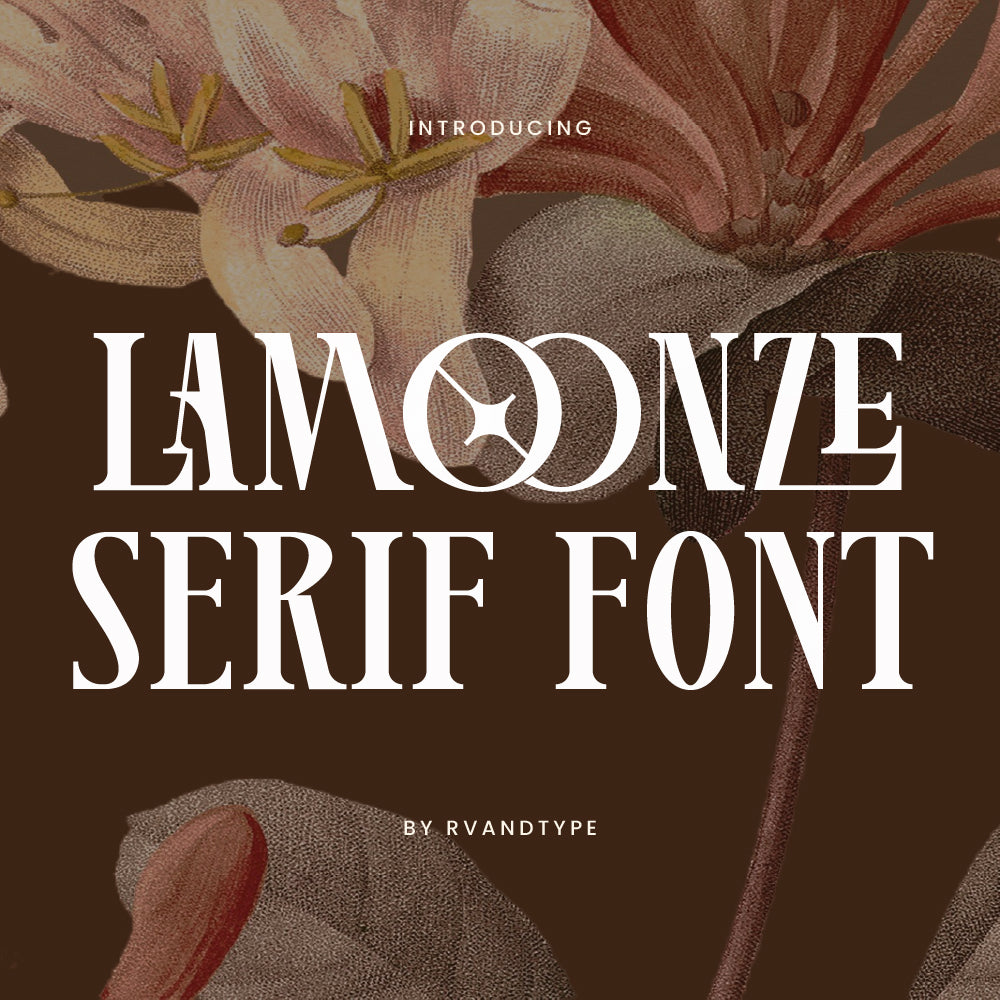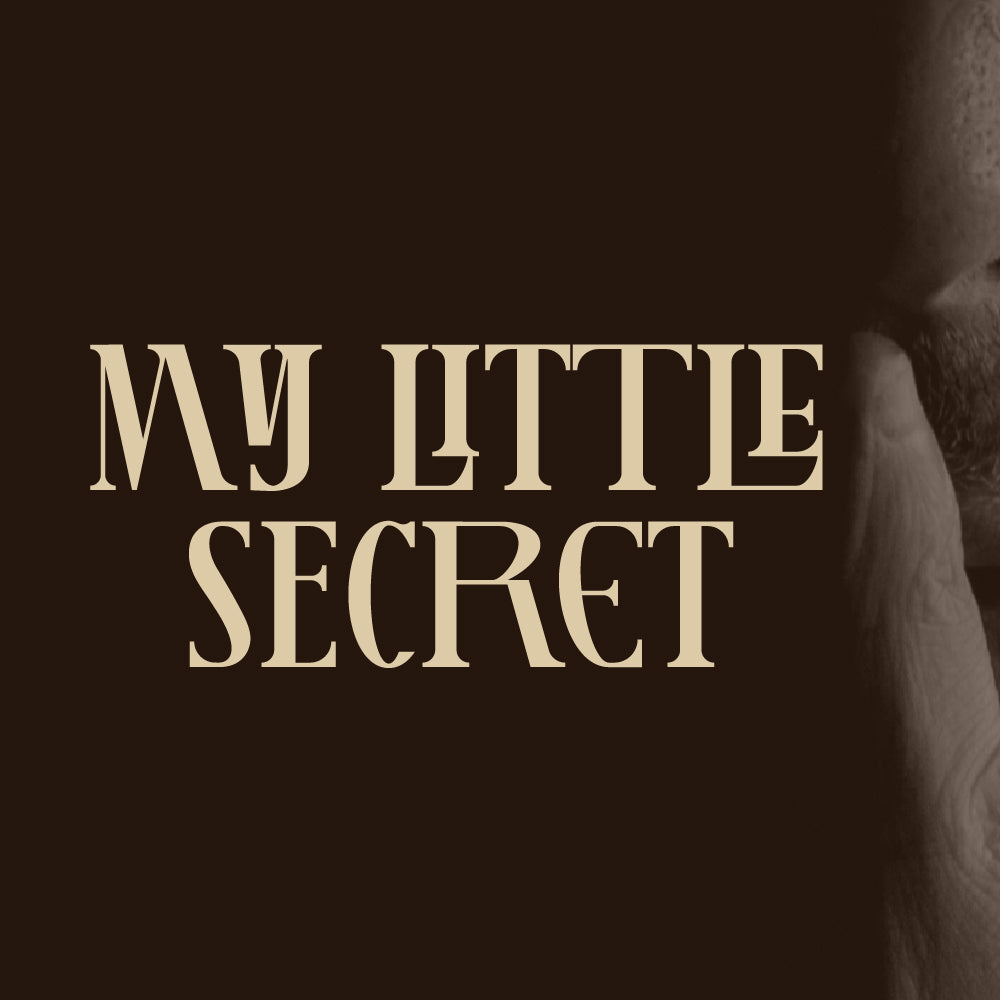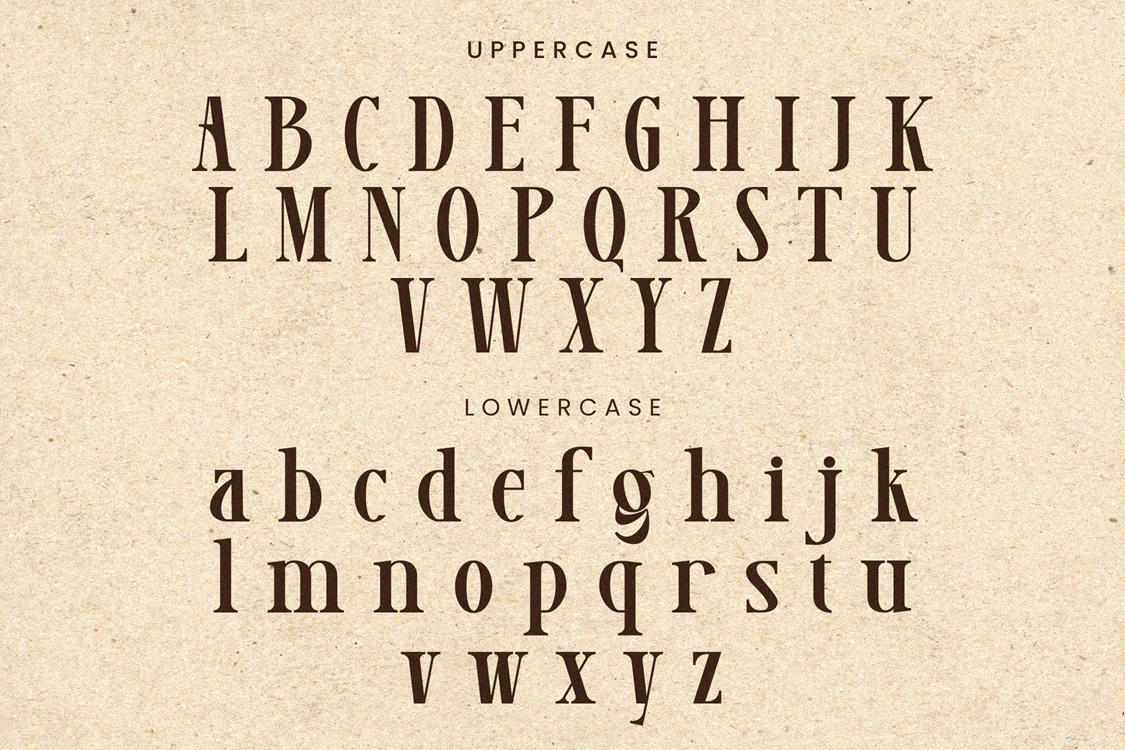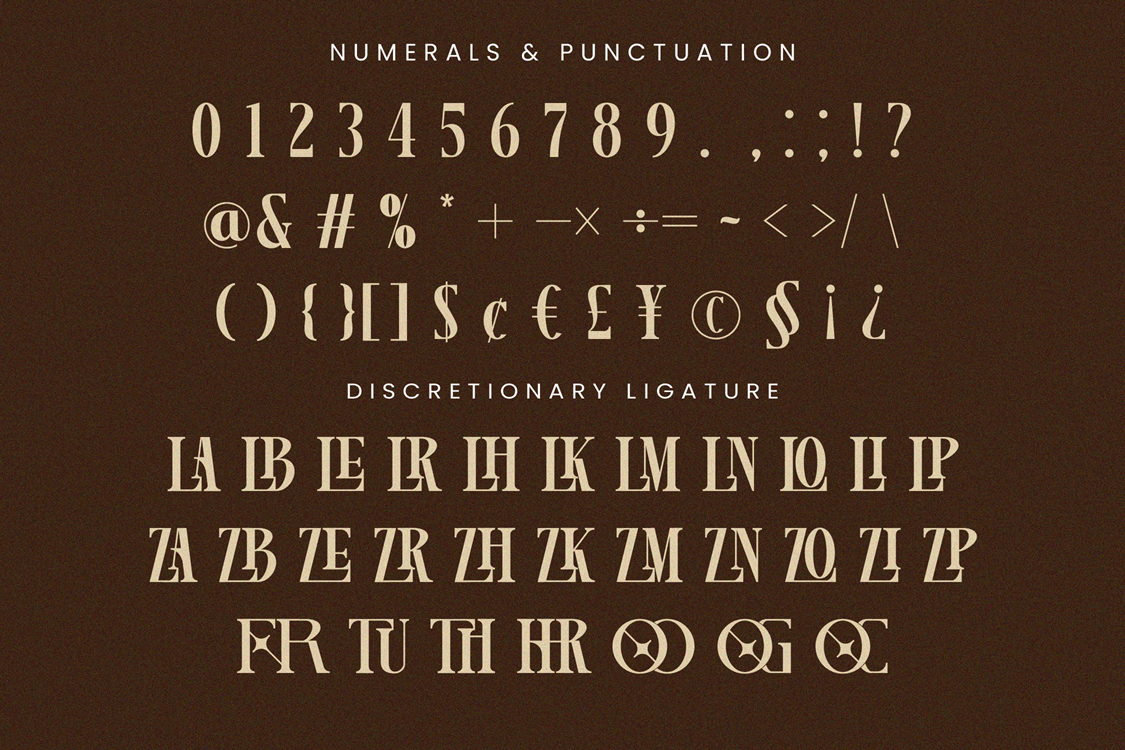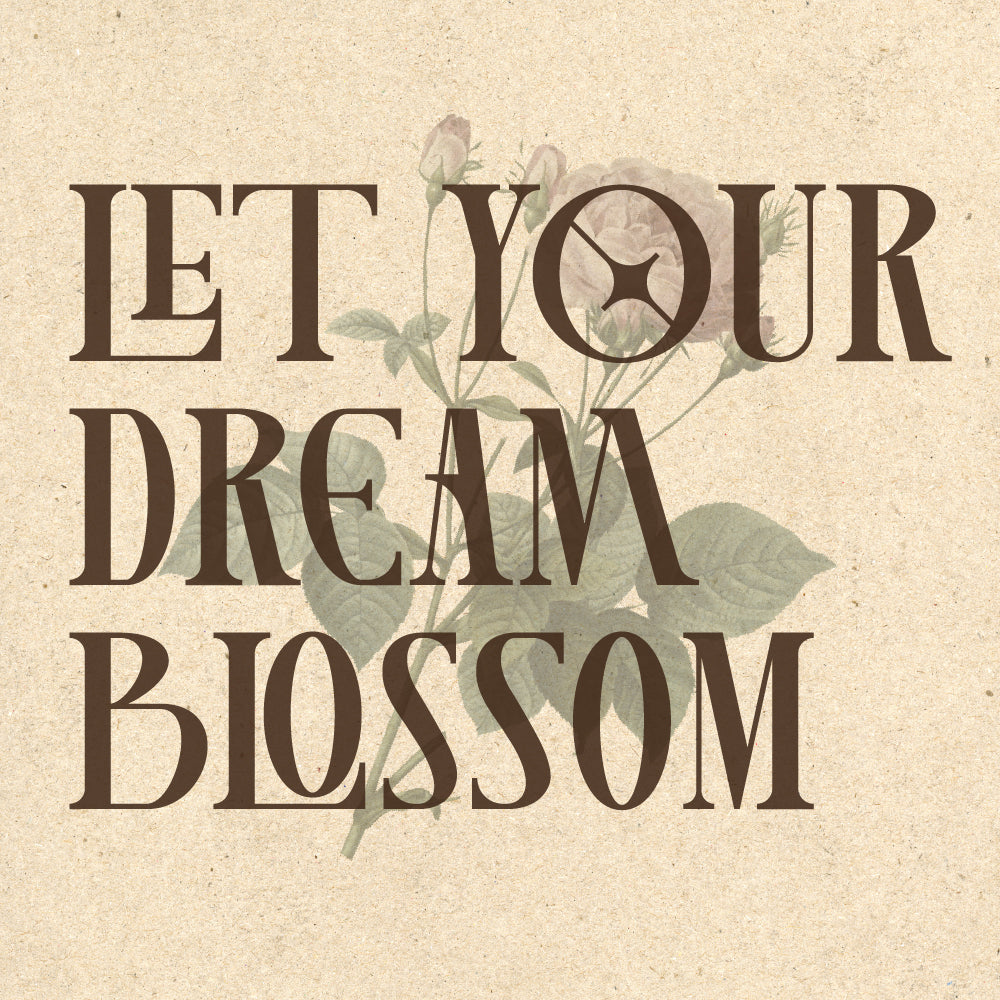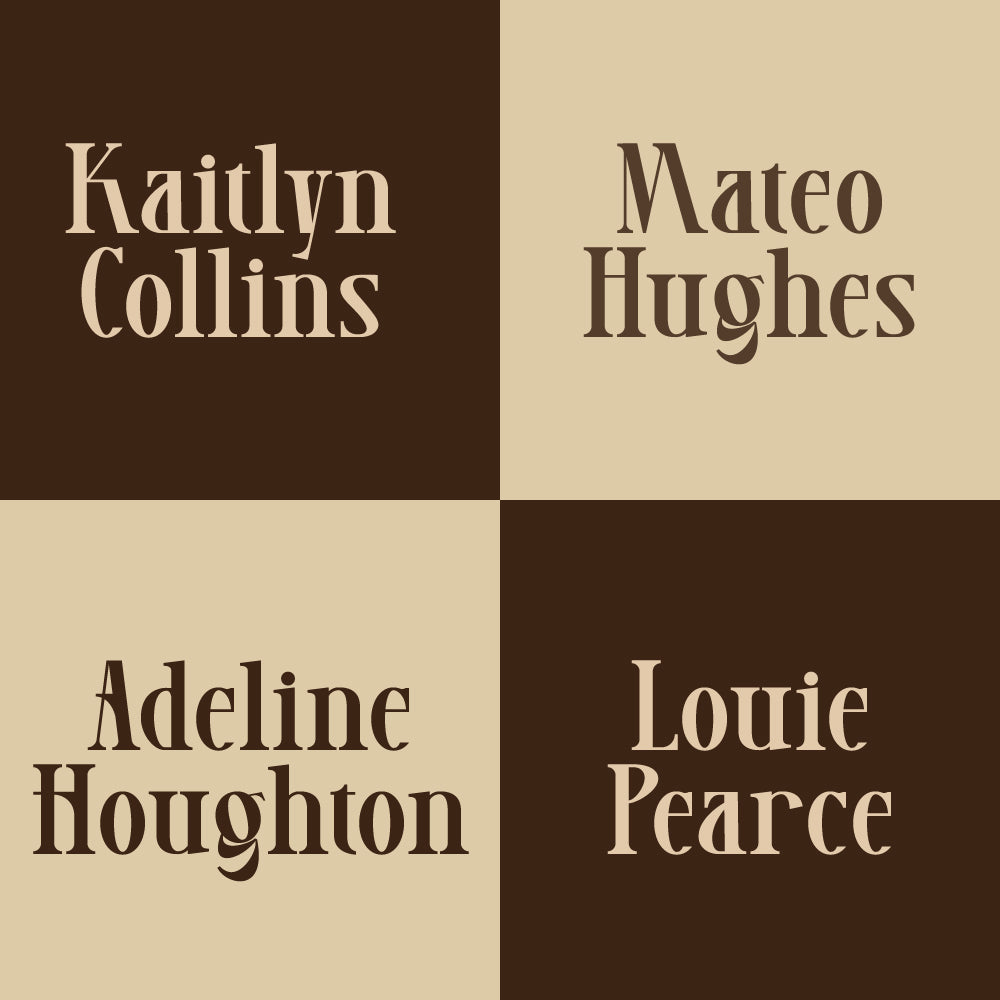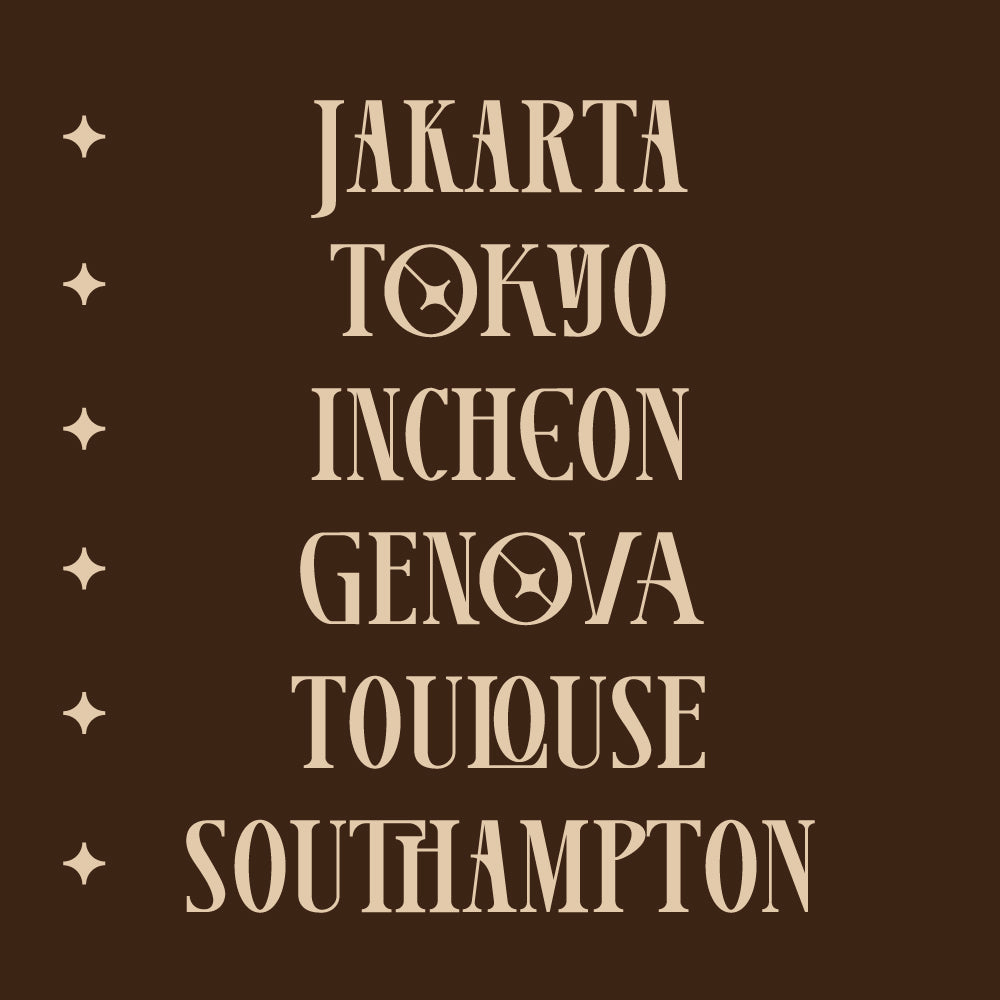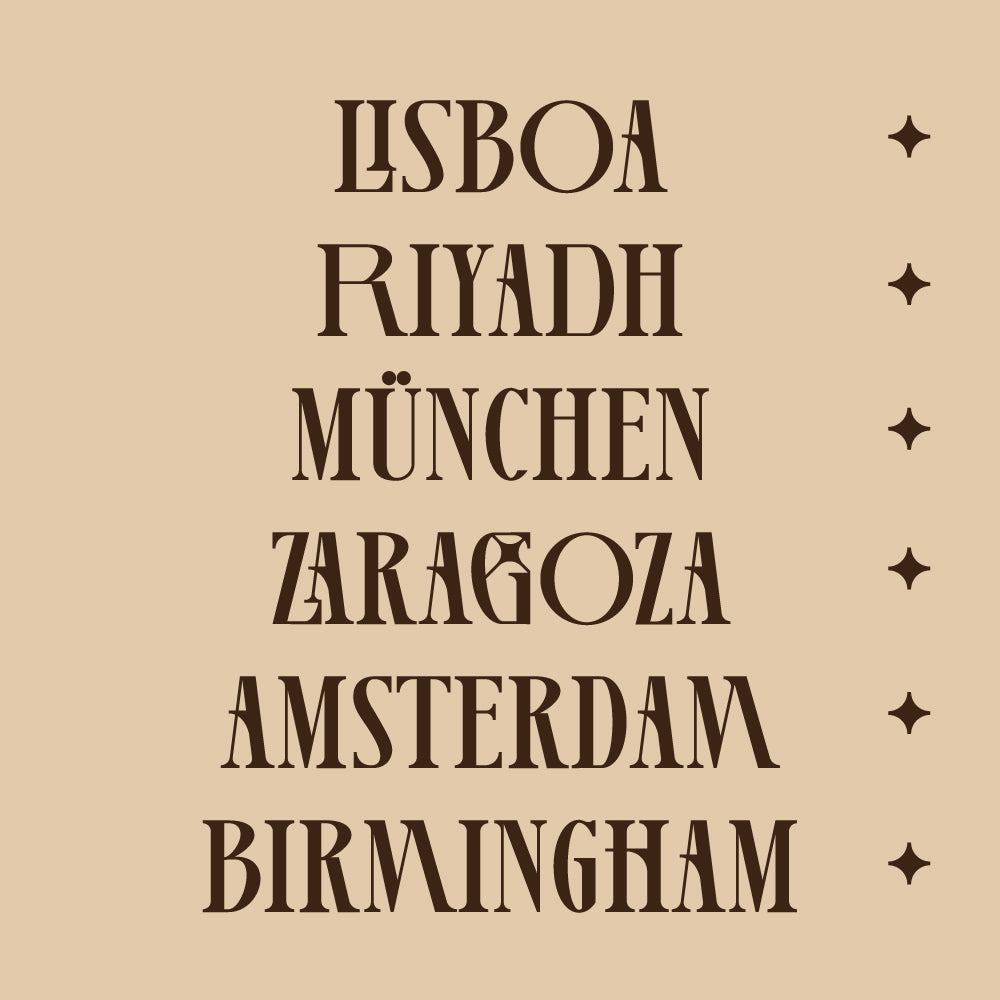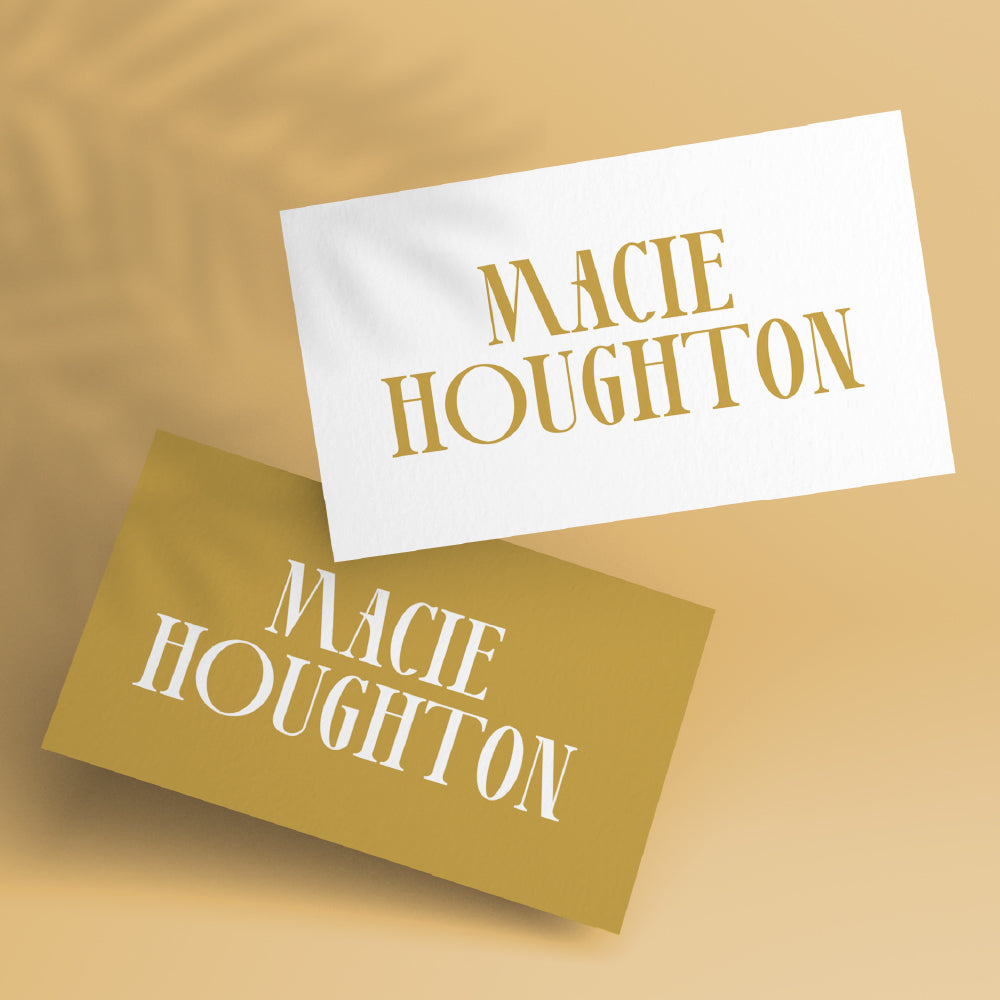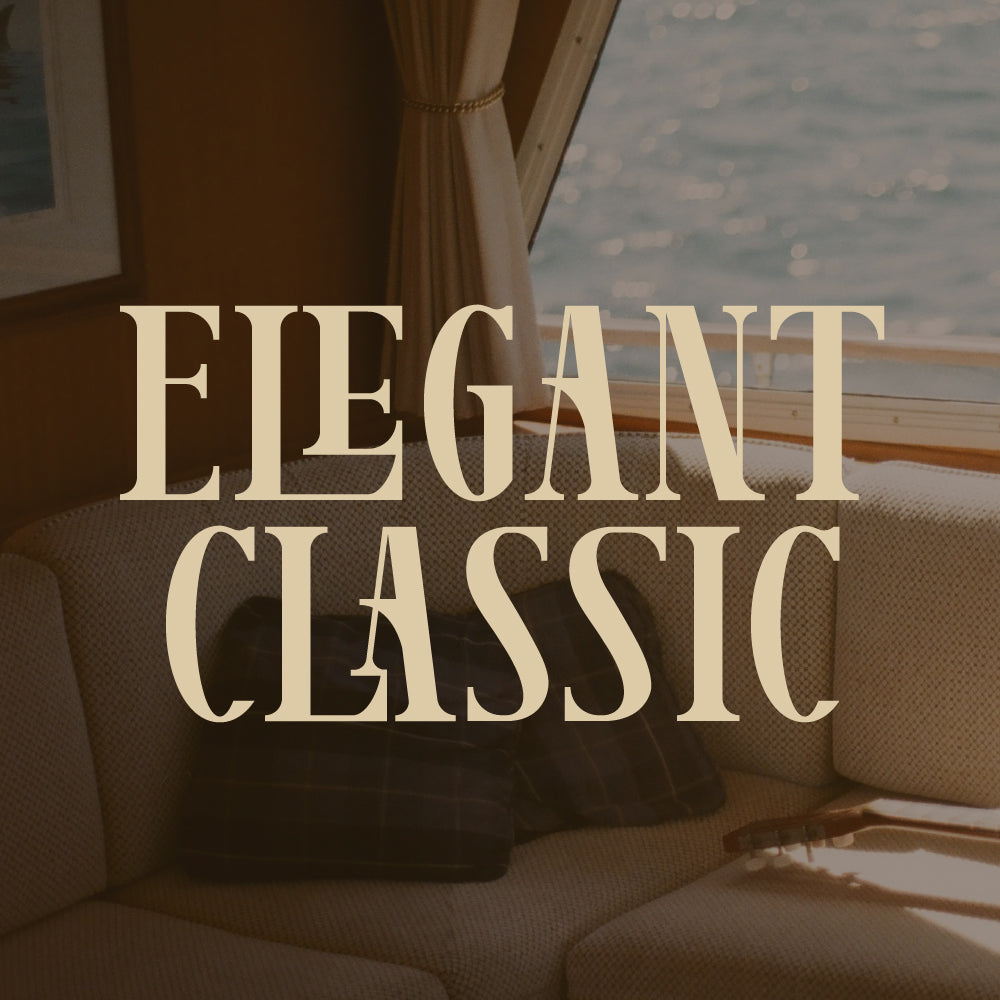
Lamoonze – Serif Display Font
Lamoonze is an elegant and bold serif font. Its elegant and cool look makes it the perfect choice for logos, branding, invitations, stationery, wedding designs, social media posts, and so much more. Lamoonze Font is PUA encoded which means you can access all of the glyphs.
• Alternate Characters
• numbers and punctuation
• multilingual
Lamoonze is a bold serif display font that includes alternate characters, numbers, punctuation, and multilingual support, with PUA encoding for full glyph access. It is provided in TTF, OTF, and WOFF file formats.